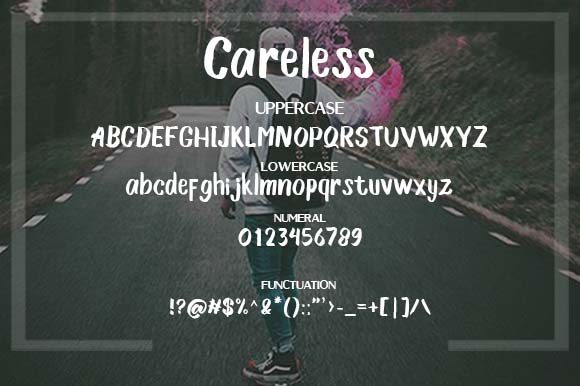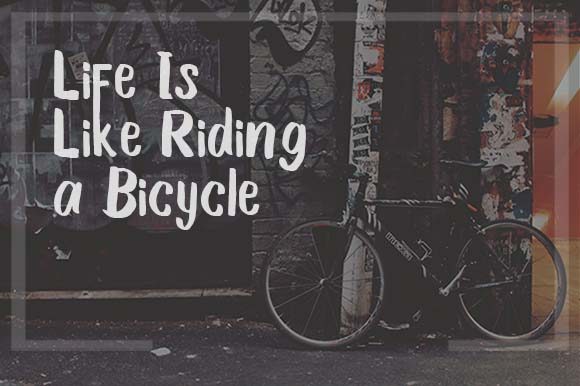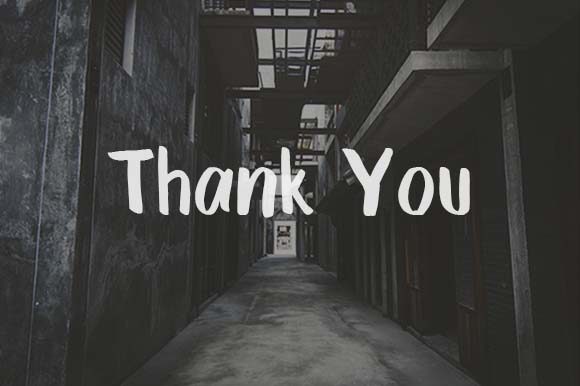
Careless Font
About Careless Font
Careless is a stunning handwritten font with a cool feel. Get inspired by its unique charm, and turn any design project into a true standout!